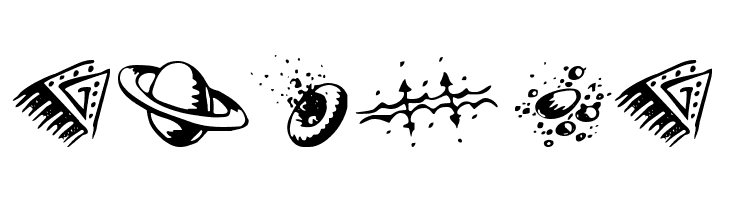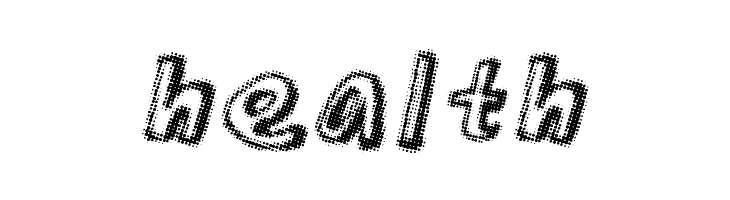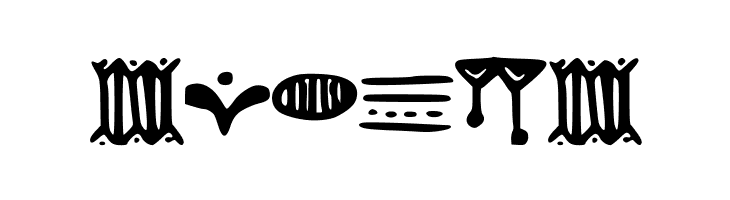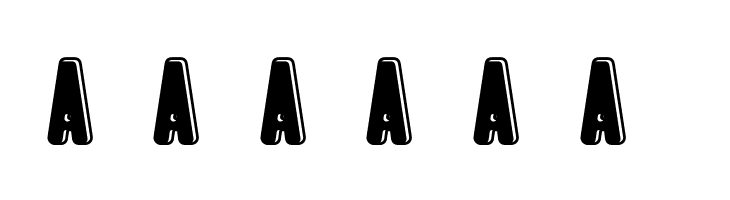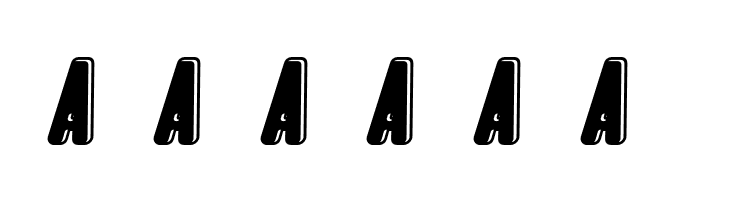
• DOCK11 Heavy
A bold, geometric sans-serif font with a modern and striking appearance.
• Donation
A bold, playful font with chunky, dynamic characters.
• Doodle Art
• Doodlizing
A playful and whimsical collection of doodle-like symbols with bold, decorative designs.
• DorisDay
A whimsical and elegant script font with flowing, interconnected letterforms.
• Dotted Newspaper
• DoverfieldDemo
• dPopper
A bold, playful font with rounded, bubble-like characters.
• dPopper-Italic
A bold, italic font with a playful shadow effect and rounded characters.
• Drakalligro
A modern, rounded sans-serif font with a friendly and approachable style.